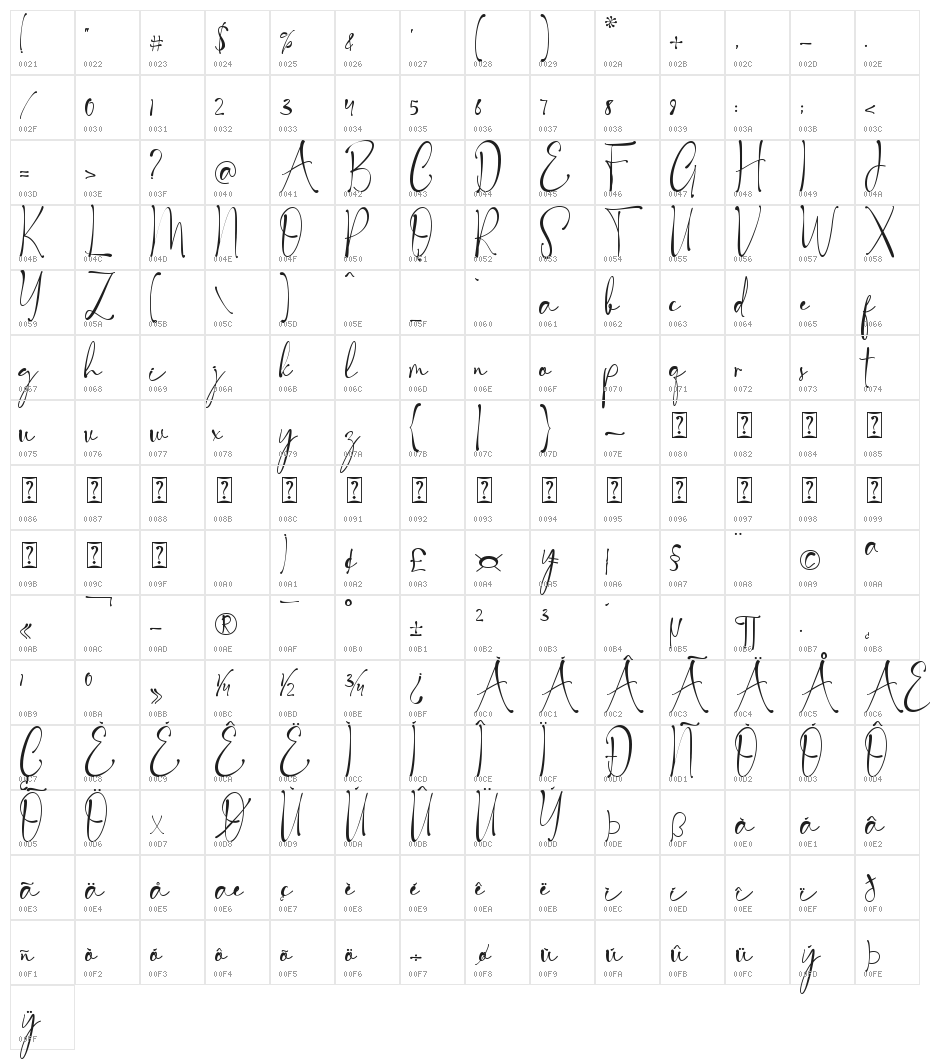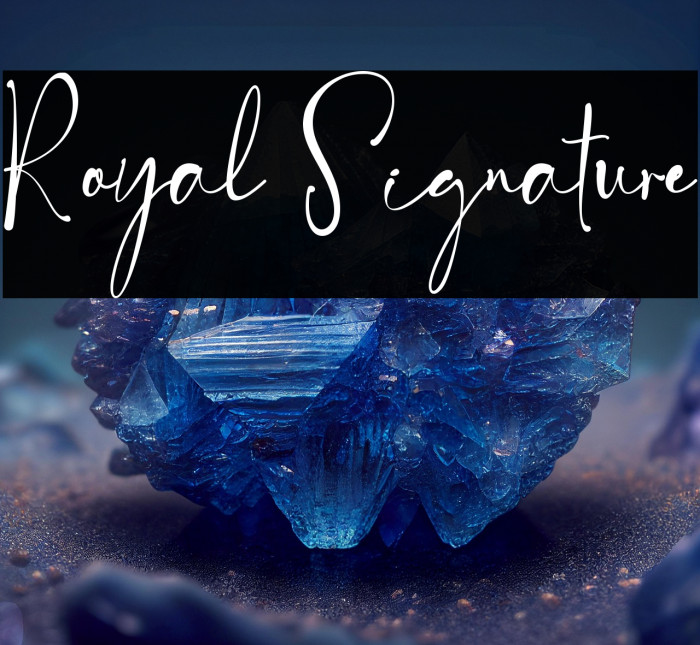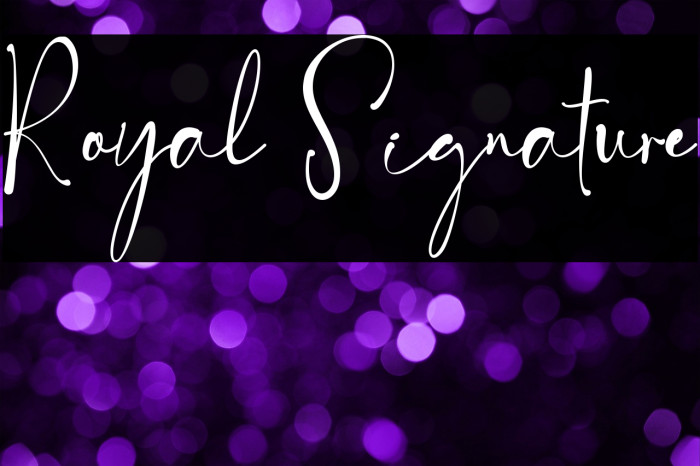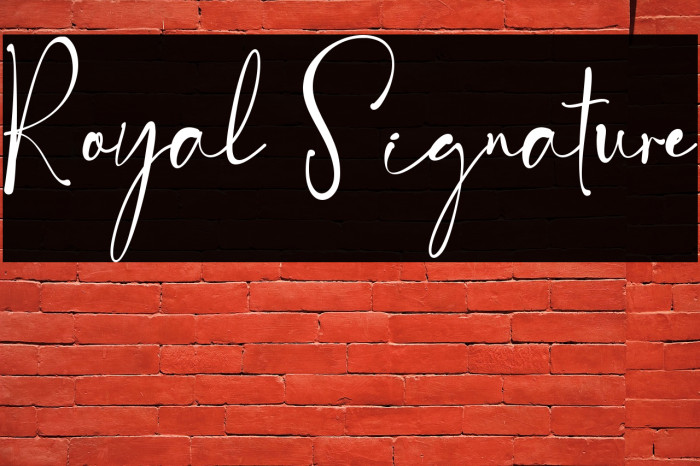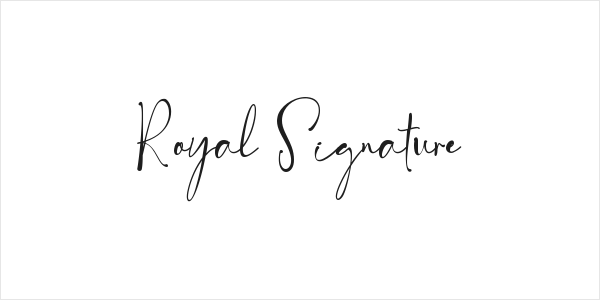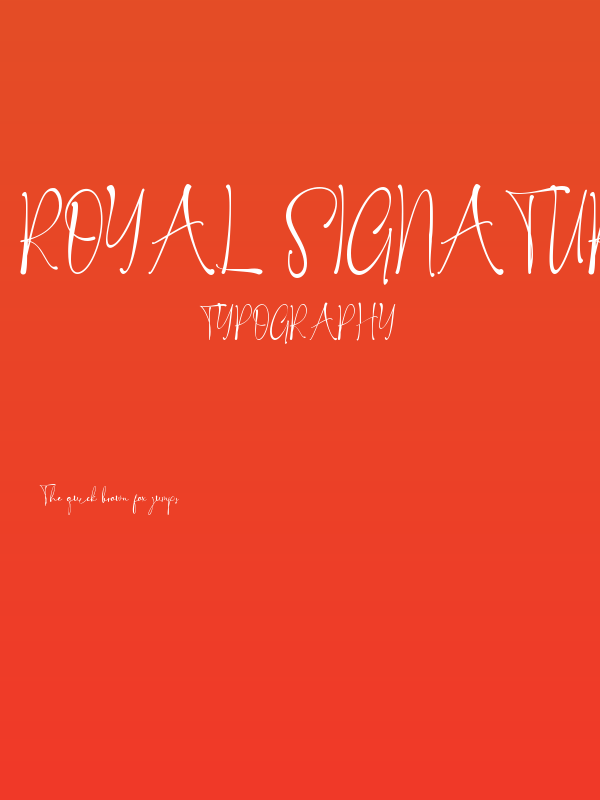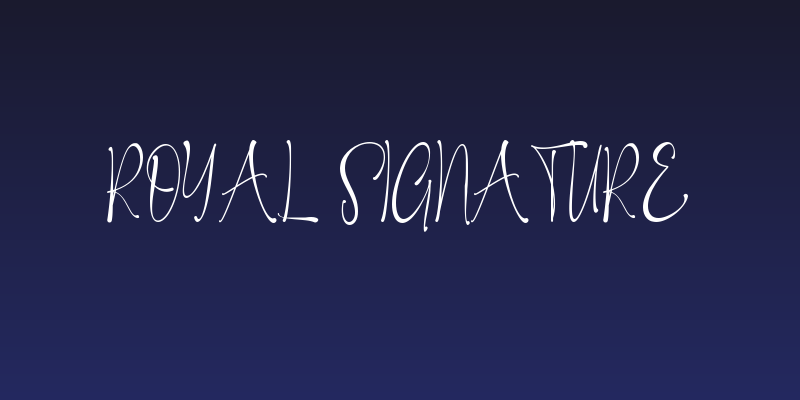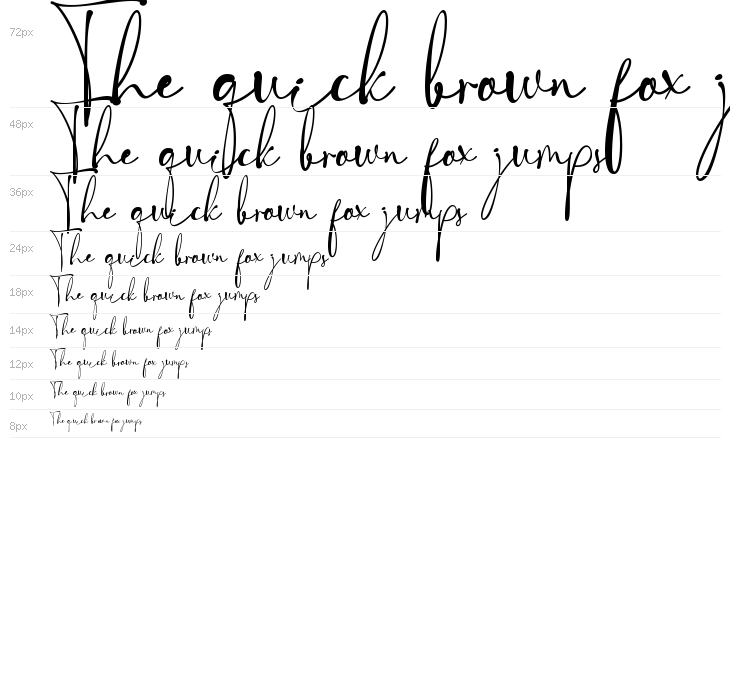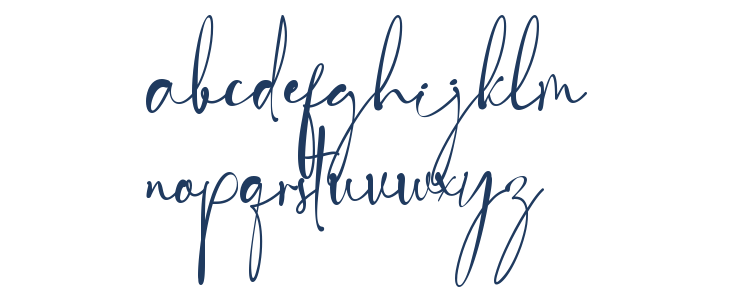
Royal Signature Font
Royal Signature Description
This font exudes elegance and sophistication with its fluid, cursive style. The uppercase letters are tall and slender, with graceful curves and a slight slant, giving them a refined appearance. The lowercase letters are more compact, maintaining the cursive flow with smooth, connected strokes. The numerals are consistent with the overall style, featuring a similar slant and fluidity. Special characters are designed with the same attention to detail, ensuring they blend seamlessly with the alphabet. This font is perfect for projects that require a touch of class and elegance, such as wedding invitations, luxury branding, or high-end product packaging.
| Overall Style | Elegant |
| Use Case | Logos, Invitations, Branding |
| Proposed Projects | Ideal for wedding invitations, luxury branding, and high-end product packaging. |